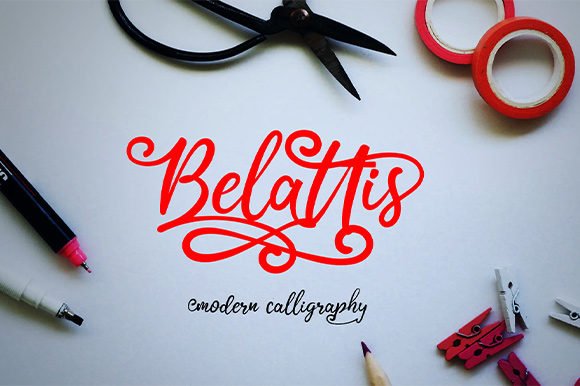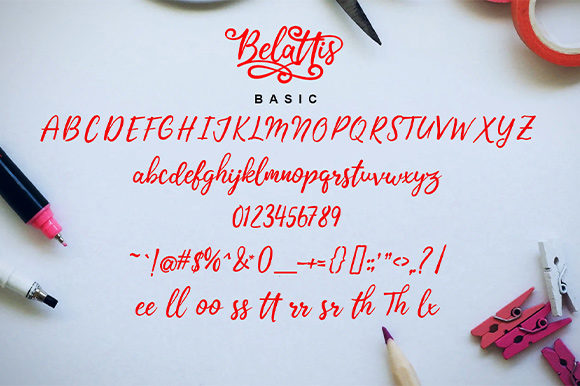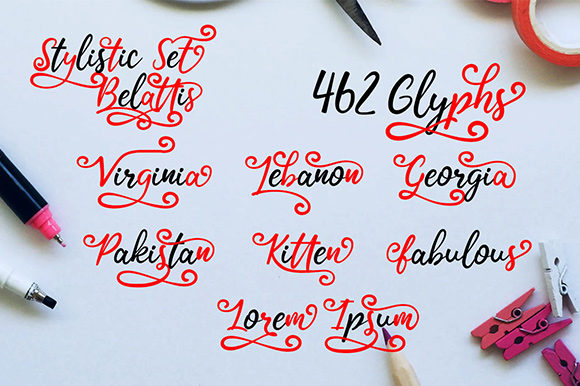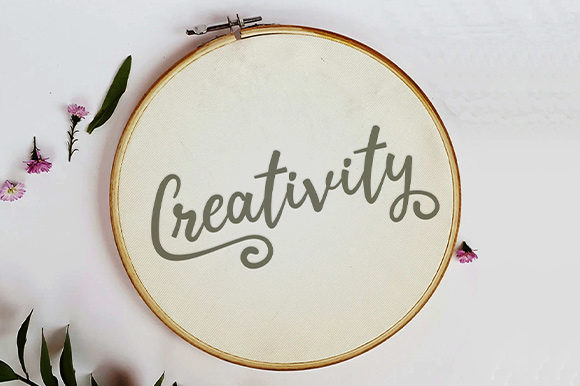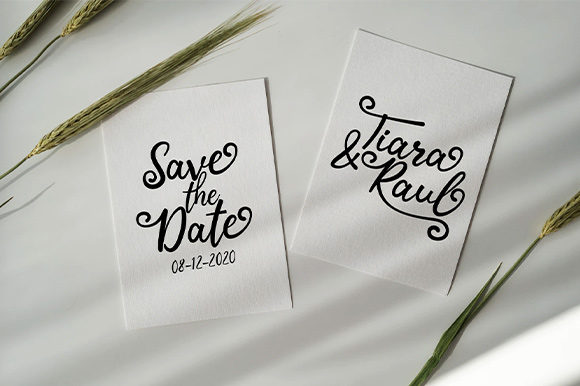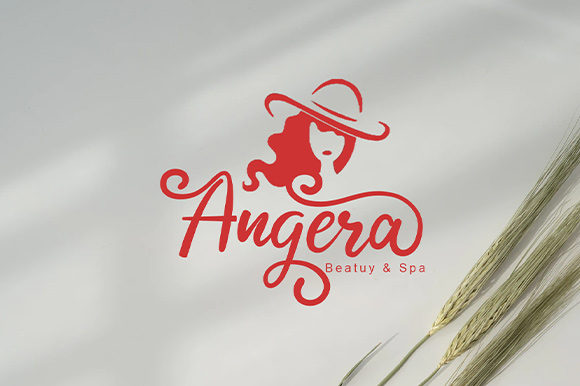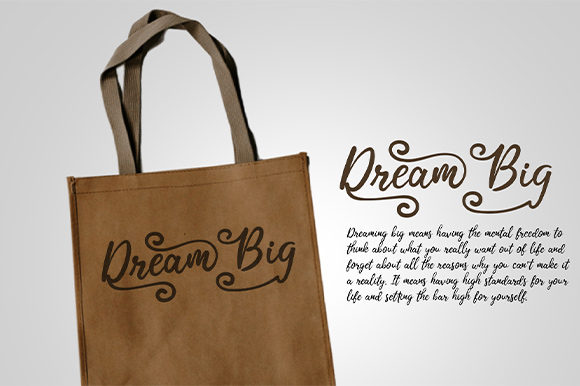
The Perfect Blend of Elegance and Modernity
Have you ever stared at a blank page, pencil in hand, and felt the urge to create something truly special? The blank canvas can be intimidating, but it’s also a blank check, full of endless possibilities. For designers, this is a familiar sensation – the thrill of bringing a concept to life. And that’s exactly what the Belattis Font is designed to do.
With its classy calligraphic influences and fresh, contemporary feel, Belattis Font is the perfect tool for elevating your design projects to the next level. Whether you’re working on branding, headings, wedding designs, or invitations, this font is sure to make your work stand out. Its wealth of special features, including alternate glyphs and ligatures, makes it a valuable asset for designers looking to add a touch of sophistication to their work.
Belattis Font Key Features
- Font Family: Belattis is a modern, elegant script font designed for various applications, including digital and print media.
- Unique Characteristics: Belattis features a unique blend of elegant and modern script styles, with subtle flair and swashes that add a touch of sophistication to any text.
Belattis Font Review
At first glance, the Belattis Font catches the eye with its elegant and modern design. It works well in ✨headline and display settings, where its unique curves and flourishes can add a touch of sophistication to a design. It’s also suitable for ✨body text in certain contexts, particularly when a high-end feel is desired.
However, I found the Belattis Font to be somewhat lacking in ✨readability and legibility at smaller font sizes. This can make it challenging to use in ✨long blocks of text, where the viewer may struggle to decipher the words.
Additionally, the Belattis Font seems to be missing some essential language support, including ✨some Cyrillic and Greek characters. This can limit its usability in certain industries or regions where these scripts are prevalent.
The Belattis Font is a visually appealing typeface, but its limitations may make it less suitable for certain design applications. It’s ideal for projects where a high-end, modern aesthetic is desired, but it may not be the best choice for more practical or demanding design tasks.
- Use the Belattis Font in headline and display settings.
- Avoid using the Belattis Font in long blocks of text or at small font sizes.
- Consider using a more comprehensive font with better language support.
Tips for Getting the Most Out of Belattis Font
To get the most out of the Belattis font, use it for:
- Creativity-driven projects, such as graphic design and art.
- Projects that require a unique and elegant touch.
- Combining with other fonts for a visually appealing contrast.
Yes, the Belattis Font is designed to be highly legible and versatile, making it an excellent choice for digital media applications. It is optimized for use on screens and is available in a range of font sizes and weights to ensure clear readability at various resolutions and screen sizes.